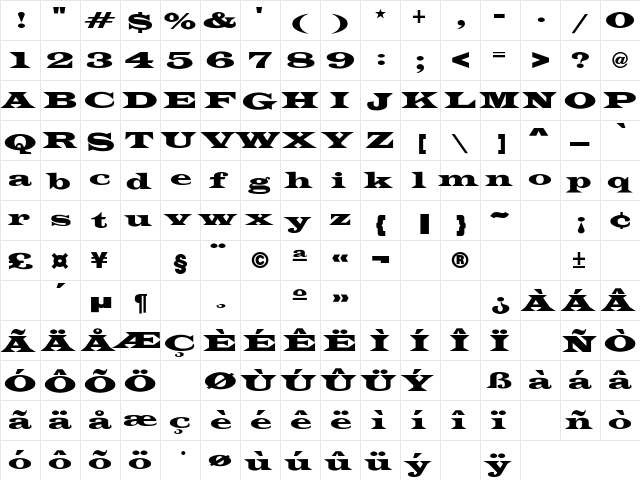
Latin-Wide Regular
Design Context for Latin-Wide Typeface
Latin-Wide offers clean, dependable letterforms without strong stylistic allegiance, making it a practical choice for designers who need flexibility.